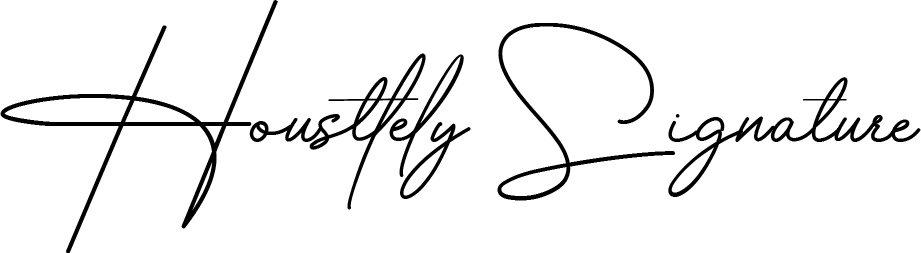
Housttely Signature Font
Today we are introducing a very useful signature font to you. This font is an elegant and continuous one called Housttely Signature that can transition your words into a classy text.
You can use it for any fashion blogs, magazine headlines, cosmetic brand packaging, and fashion event posters, and make elegant and interesting titles with it. This font does not have a numeric set.